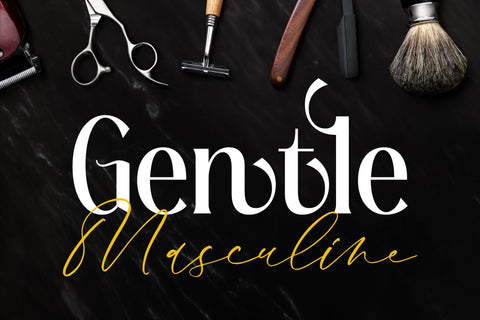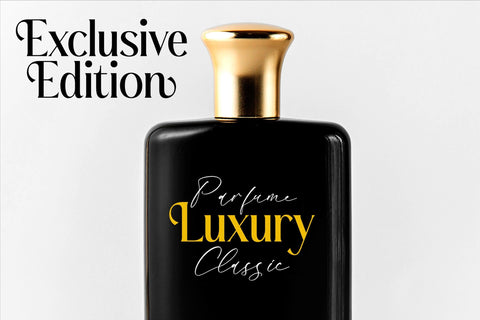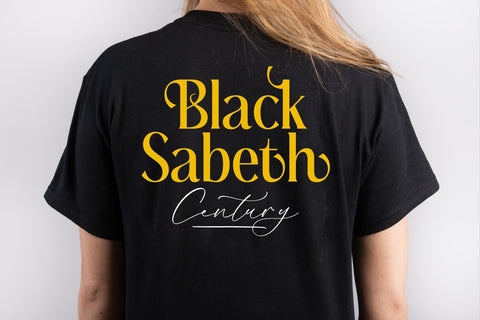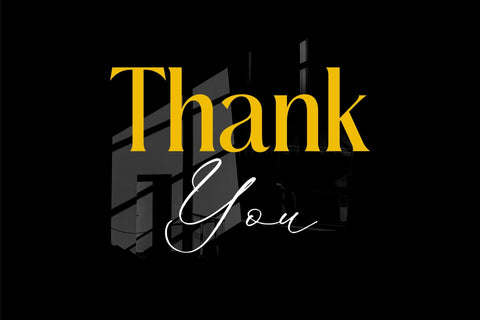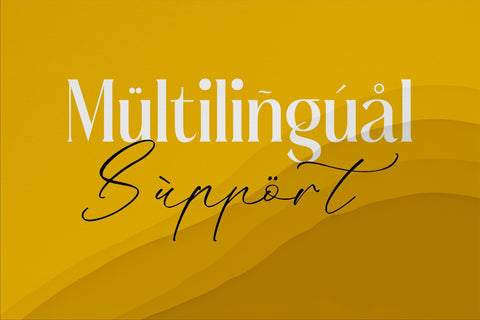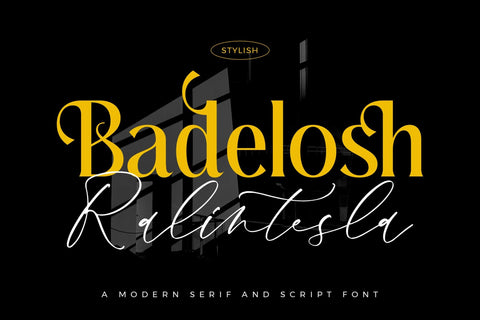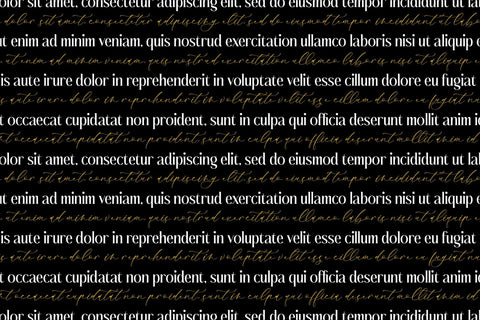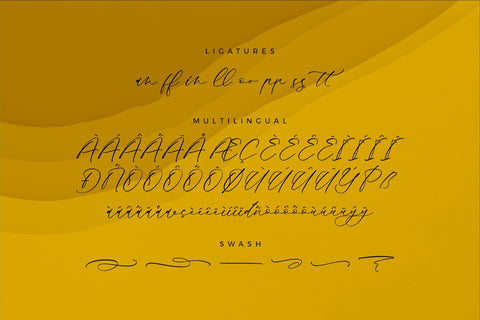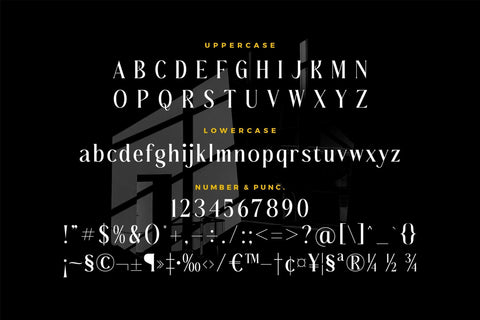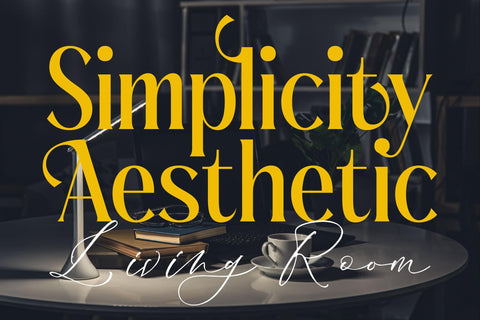
Badelosh Ralintesla Font Duo
Proudly present Badelosh Ralintesla Font Duo , created by Storytype,
A serif and script typeface that has own unique style & modern look.